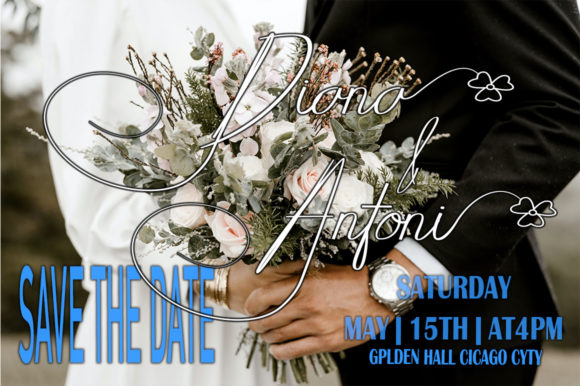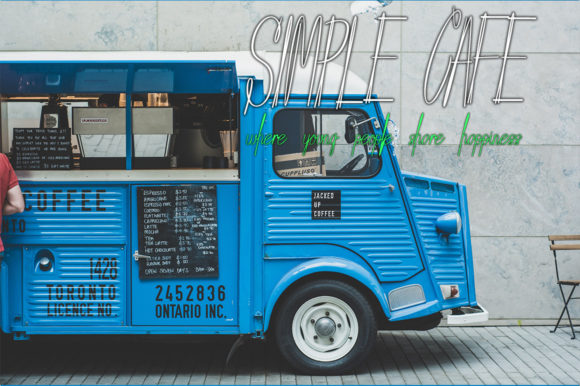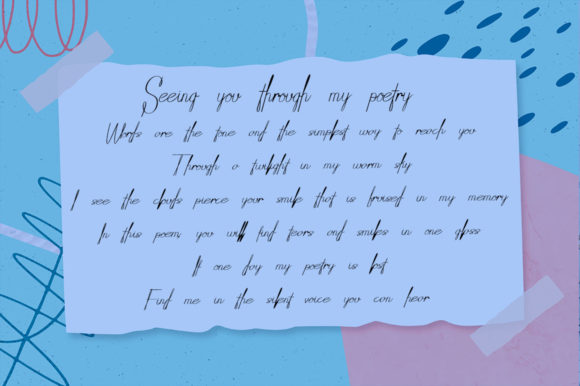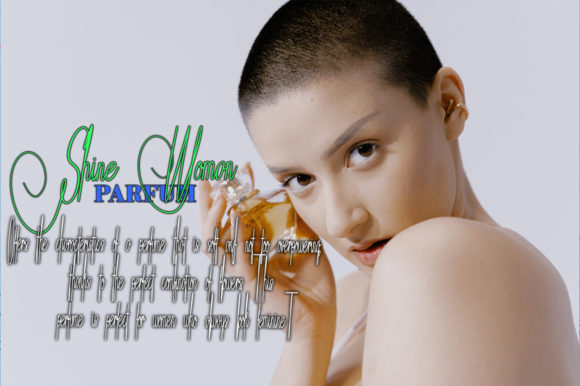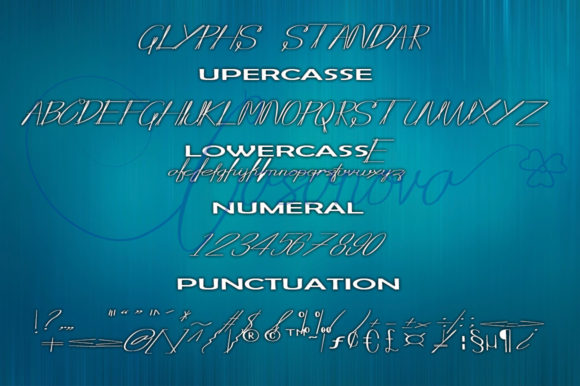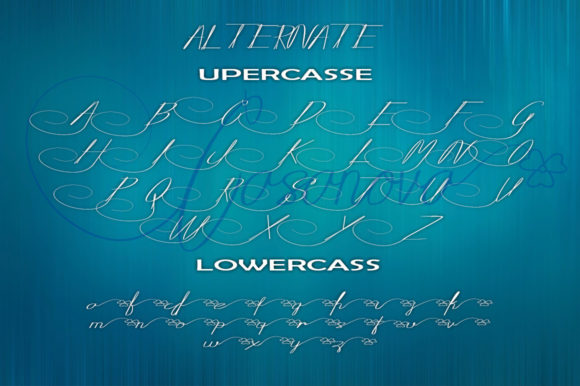
Casanova Font: Elevate Your Designs with Timeless Elegance
In the world of typography, few fonts capture the essence of romance and sophistication as effortlessly as the Casanova Font. This lovely and timeless handwritten font has been making waves among designers and crafters alike, and for good reason. Its unique blend of elegance and playfulness makes it the perfect choice for creating eye-catching logos, branding, and quotes that leave a lasting impression.
The Beauty of Casanova Font
One of the standout features of the Casanova Font is its distinctive, hand-crafted aesthetic. Every letter has a unique and beautiful touch, imbuing your designs with a sense of personality and flair. The font’s elegant strokes and curves evoke a sense of nostalgia, reminiscent of classic handwritten scripts from a bygone era. Yet, despite its vintage charm, Casanova Font feels remarkably modern and versatile, making it suitable for a wide range of design applications.
PUA Encoding: Unlocking Endless Creative Possibilities
Another significant advantage of the Casanova Font is its PUA (Private Use Area) encoding. This means that you can access all of the font’s glyphs and swashes with ease, giving you unparalleled creative freedom. With PUA encoding, you can effortlessly incorporate intricate details and flourishes into your designs, taking them to the next level. Whether you’re creating a logo, branding materials, or social media graphics, the Casanova Font’s PUA encoding ensures that you have all the tools you need to bring your vision to life.
So, what makes the Casanova Font such a great choice for designers and crafters? For starters, its unique and beautiful lettering makes it perfect for creating eye-catching logos and branding materials that stand out from the crowd. The font’s elegant, handwritten aesthetic also lends itself beautifully to quotes and social media graphics, adding a touch of sophistication and refinement to your online presence.
The Casanova Font’s versatility is one of its greatest strengths. Here are just a few examples of the many design possibilities that this amazing font offers:
- Logos and Branding: Create a lasting impression with custom logos and branding materials that showcase your unique style and personality.
- Quotes and Social Media Graphics: Add a touch of elegance and sophistication to your quotes and social media graphics, making them stand out in a crowded online landscape.
- Stationery and Invitations: Elevate your stationery and invitations with beautiful, hand-crafted lettering that exudes refinement and poise.
- Packaging and Product Design: Give your products a distinctive, high-end feel with custom packaging and product design that incorporates the Casanova Font.
Tips for Getting the Most Out of Casanova Font
To truly get the most out of the Casanova Font, here are a few tips to keep in mind:
- Experiment with Different Sizes and Colors: Don’t be afraid to try out different sizes and colors to see what works best for your design.
- Mix and Match with Other Fonts: Combine the Casanova Font with other fonts to create a unique and visually appealing typography scheme.
- Take Advantage of PUA Encoding: Make sure to explore all of the glyphs and swashes available through PUA encoding, and incorporate them into your design to add an extra layer of depth and interest.
In conclusion, the Casanova Font is a timeless and elegant handwritten font that offers designers and crafters endless creative possibilities. Its unique and beautiful lettering, combined with PUA encoding, makes it the perfect choice for creating eye-catching logos, branding, and quotes that leave a lasting impression. Whether you’re a seasoned designer or just starting out, the Casanova Font is sure to become a staple in your design toolkit.